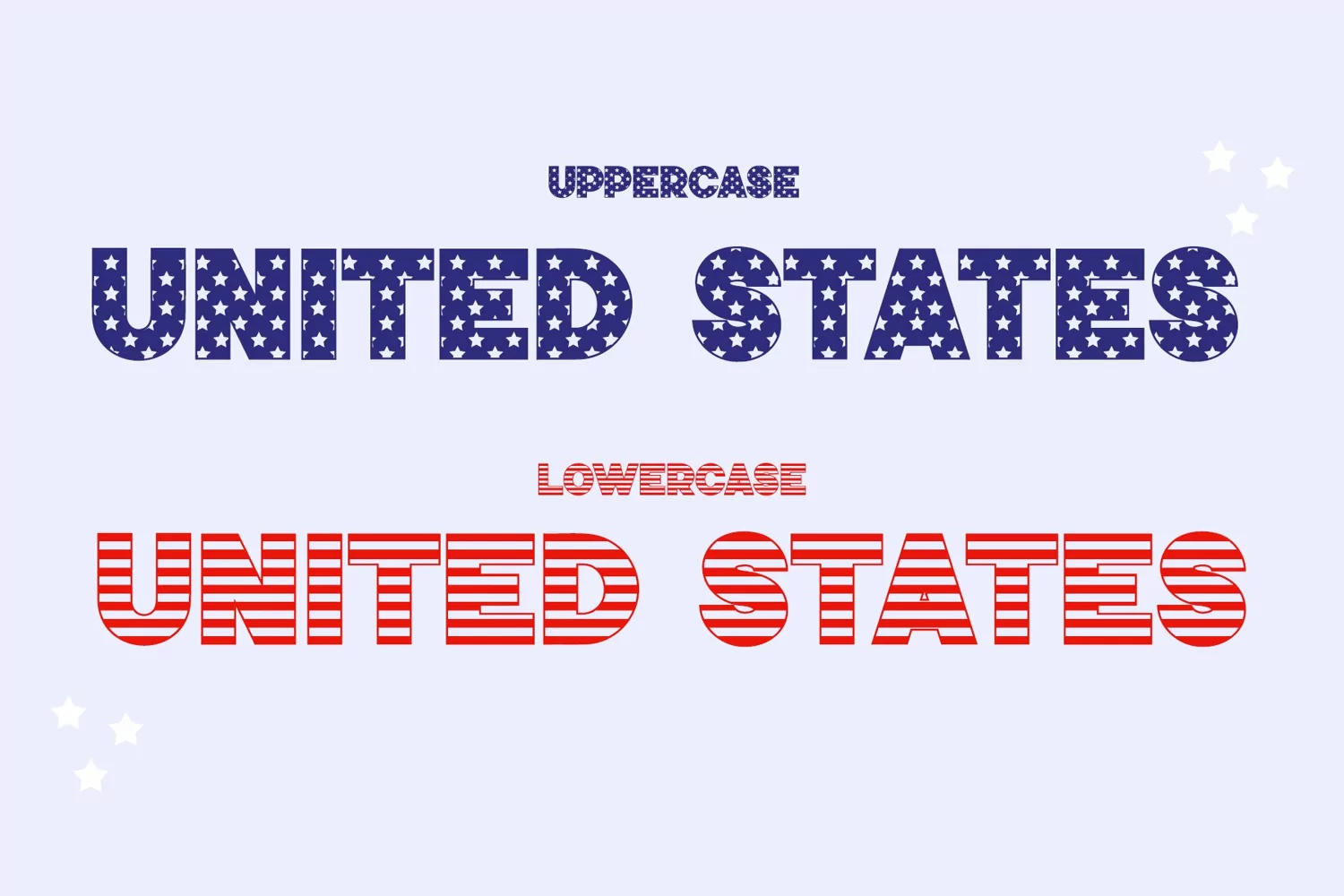
USA Day is decorative font inspired by United States flag. It is with star accent for uppercase and stripes accent for lowercase.
This font is suitable for any kind of project related with USA, such as patriot day, 4th July Independence Day, memorial day and many more.
- Uppercase and Lowercase
- Numeral and Punctuation
- Most Multilingual Accent